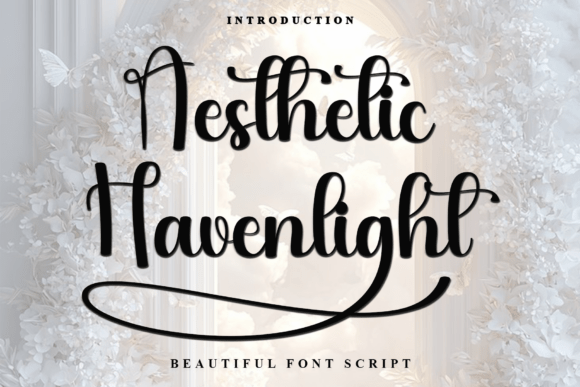
Aesthetic Havenlight Font: Elevate Your Designs with a Unique and Versatile Typeface
In the world of typography, a font can make or break a design. A well-crafted font can elevate a project, making it more engaging, memorable, and aesthetically pleasing. One such font that has caught the attention of designers and creatives is Aesthetic Havenlight. This beautiful and eye-catching font is designed with a soft, unique touch that sets it apart from other typefaces. In this article, we’ll explore the features, benefits, and uses of Aesthetic Havenlight, and why it’s becoming a go-to font for designers and creatives.
The Distinctive Characteristics of Aesthetic Havenlight
Aesthetic Havenlight is a font that boasts distinctive strokes, giving it a special character that makes it meaningful and versatile for future use. Its unique touch is both elegant and refined, making it perfect for a wide range of design projects. The font’s softness adds a touch of warmth and approachability, making it ideal for designs that require a personal and creative touch.
One of the standout features of Aesthetic Havenlight is its varied character set. The font includes a range of characters that cater to different design needs, ensuring that designers have the flexibility to create unique and engaging content. Whether you’re working on a logo, brochure, or social media graphic, Aesthetic Havenlight has got you covered.
Versatility and Compatibility
Whether you’re a graphic designer, artist, or crafty DIY enthusiast, Aesthetic Havenlight is an excellent addition to your design toolkit. The font’s natural style and unique touch make it perfect for various creative projects, including:
- Logo design
- Brochures and flyers
- Social media graphics
- Posters and signage
- Craft projects and DIY designs
The Benefits of Using Aesthetic Havenlight
So, why should you choose Aesthetic Havenlight for your design projects? Here are just a few benefits of using this beautiful font:
- Unique and eye-catching: Aesthetic Havenlight’s distinctive strokes and soft touch make it a standout font that grabs attention.
- Versatile: The font’s varied character set and compatibility with different platforms make it suitable for a wide range of design projects.
- Easy to read: Aesthetic Havenlight’s clear and refined design makes it easy to read, even at smaller font sizes.
- Customizable: The font’s unique touch allows for creative freedom, making it easy to experiment with different design styles.
Tips for Using Aesthetic Havenlight Effectively
To get the most out of Aesthetic Havenlight, here are some tips for using the font effectively:
- Pair it with complementary fonts: Aesthetic Havenlight’s unique touch can be paired with other fonts to create a harmonious and visually appealing design.
- Experiment with different sizes: The font’s clear design makes it suitable for use at various sizes, from headings to body text.
- Use it for emphasis: Aesthetic Havenlight’s distinctive strokes make it perfect for emphasizing key messages or highlighting important information.
Aesthetic Havenlight is a beautiful and versatile font that can elevate your designs and add a touch of elegance and sophistication. Its unique touch, varied character set, and compatibility with different platforms make it an excellent choice for designers and creatives. Whether you’re working on a logo, brochure, or social media graphic, Aesthetic Havenlight is a font that can help you create engaging, memorable, and aesthetically pleasing designs.
- What is Aesthetic Havenlight? Aesthetic Havenlight is a beautiful and eye-catching font designed with a soft, unique touch.
- What are the key features of Aesthetic Havenlight? The font boasts distinctive strokes, a varied character set, and compatibility with different platforms.
- What types of projects is Aesthetic Havenlight suitable for? The font is perfect for various creative projects, including logo design, brochures, social media graphics, posters, and craft projects.
- Is Aesthetic Havenlight easy to read? Yes, the font’s clear and refined design makes it easy to read, even at smaller font sizes.